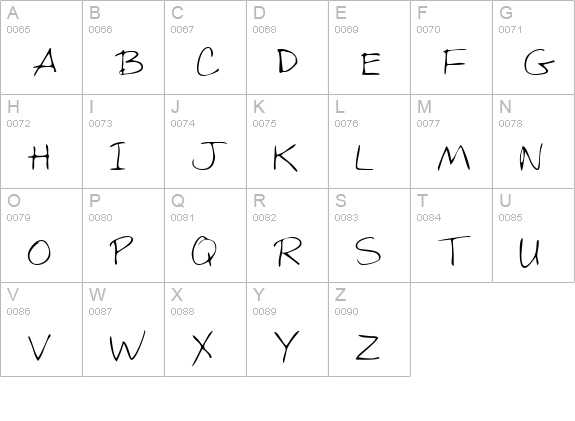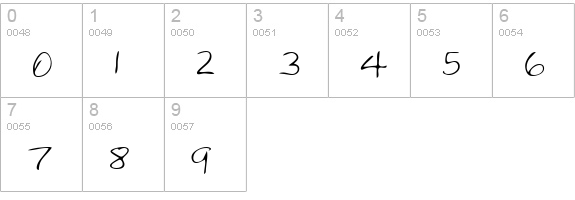
KylesHand Font Details
Introducing KylesHand font, a charming and whimsical typeface that adds a touch of personality to any design project. This delightful handwritten font features a unique style that exudes warmth and friendliness, making it perfect for a wide range of applications. With its playful curves and flowing lines, KylesHand font is sure to captivate and delight your audience. Best of all, KylesHand font is completely free to download at FontsMarket.com. Whether you're designing a greeting card, invitation, poster, or any other creative project, this versatile font is a fantastic choice. Add a touch of handwritten charm to your designs with KylesHand font today!